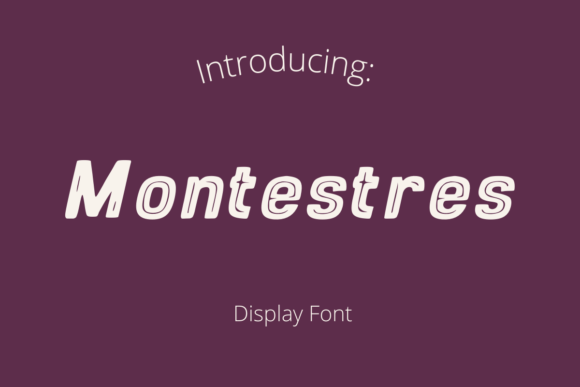
Behold the Montestres Font, a daring display font crafted by the visionary Sparkylicious, tailored to ignite your designs with a burst of energy and dynamism. Its sharp and angular strokes dance across the page, creating a captivating visual symphony that commands attention and leaves a lasting impression. Imagine your sports-related designs bursting with life, your logos radiating an aura of power, and your action-packed creations pulsating with an infectious rhythm.
With the Montestres Font as your creative ally, you'll discover a world of possibilities, where your designs transcend the ordinary and embrace the extraordinary. Unleash the boundless energy of this font in your sports-themed designs, letting the sharp angles mirror the intensity of competition and the dynamic strokes capture the exhilarating rush of victory.
Elevate your logos to new heights, transforming them into bold and distinctive emblems that embody your brand's essence. The Montestres Font's angular structure adds a touch of sophistication and edge, ensuring your logos stand out from the crowd and leave an indelible mark on your audience's minds.
Embrace the dynamic spirit of the Montestres Font in your action-packed designs, where every line and curve exudes a sense of movement and energy. Bring your characters to life, let your illustrations leap off the page, and immerse your audience in a world of captivating storytelling. The Montestres Font is the ultimate weapon in your design arsenal, ready to transform your ideas into visually stunning masterpieces.
Don't settle for ordinary fonts that blend into the background. Dare to be different, to make a statement, to ignite your designs with the raw power of the Montestres Font. Experience the thrill of creating designs that captivate, inspire, and leave an everlasting impact on your audience. Unleash your creativity and witness the Montestres Font work its magic, transforming your designs into stunning works of art.